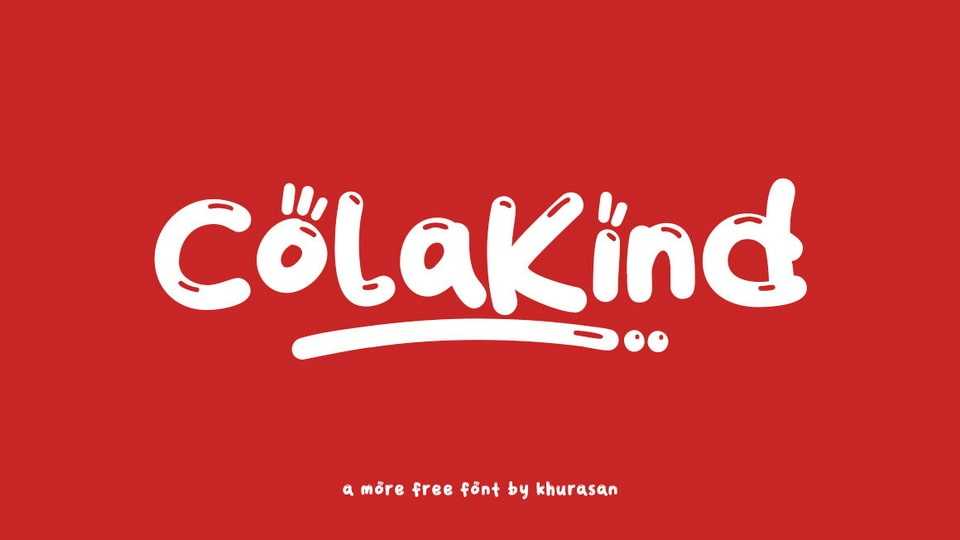
Download Colakind font, a lovely and funny handwritten typeface. Colakind is perfect for all your graphic design projects like posters, logos, magazines, book covers, banners and more extraordinary designs!